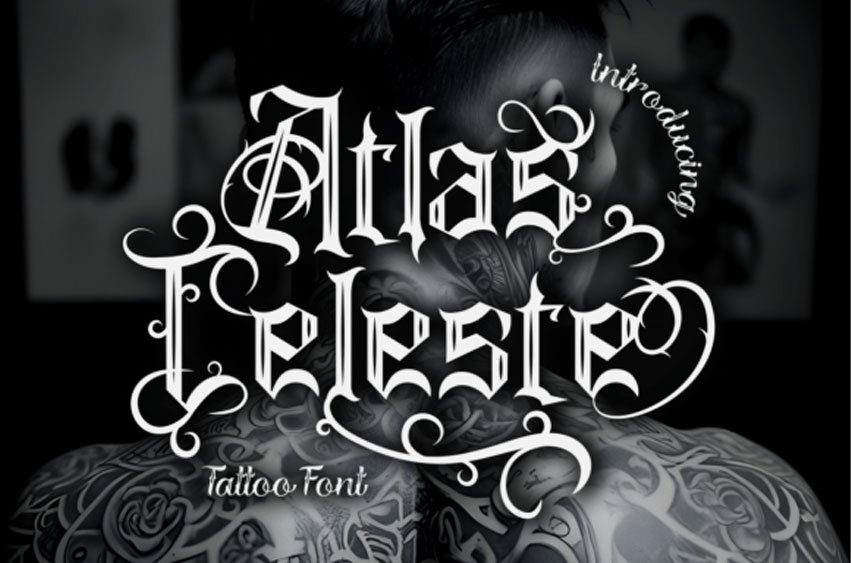
Atlas Celeste Font Tattoo Font, a powerful blackletter font designed to bring a bold, gothic essence to your creative projects. Inspired by classic tattoo art, Atlas Celeste embodies an intricate blend of dark curves and sharp edges, evoking a sense of mystery and elegance. Its blackletter design is perfect for projects requiring a strong, impactful visual statement, whether you’re designing logos, posters, or even film titles.
With a unique combination of traditional ink-like strokes and modern design elements, this font adds a vintage yet timeless touch to any medium, giving your designs a distinct and bold flair.